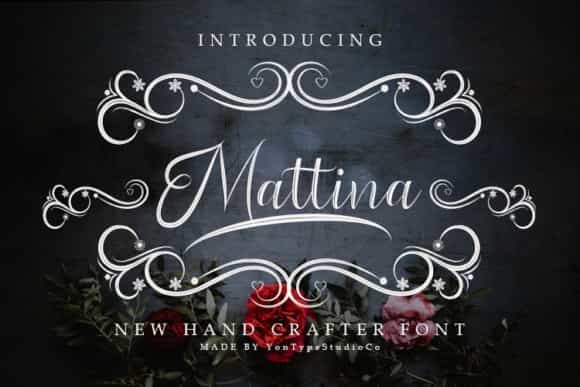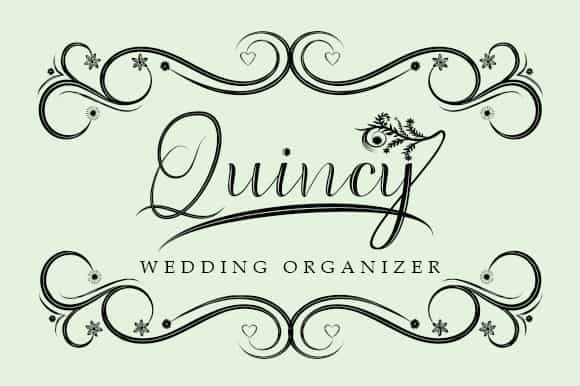
Mattina Font has both uppercase and lowercase letters, numerals, punctuations and a lot of other variations on each character that includes opentype alternates. Combine this font with a lot of alternates to suit your project. This font is so versatile that you have many choices to create something different.